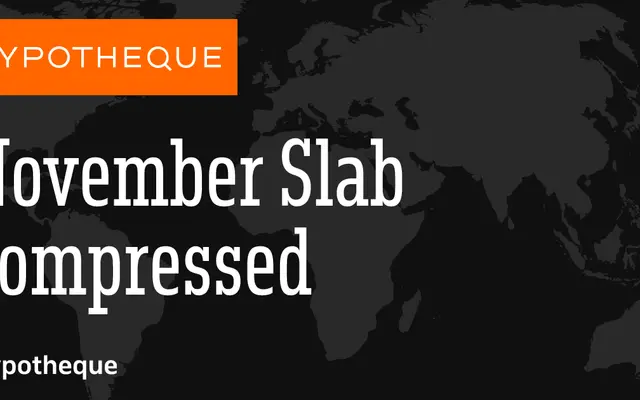
November Slab Compressed
A compressed slab serif from Typotheque's November Slab system, offering nine weights from Hairline to Black with matching italics.
Part of the November Slab system alongside regular and condensed widths, the Compressed cut runs from Hairline to Black across eighteen styles including italics. The family also ships as a variable font, giving fine-grained control over weight and width in a single file. Its tight proportions suit headlines, poster work and situations where column space is tight.
A compressed slab serif with a wide weight range from Hairline to Black; the geometric construction and uniform stroke contrast place it firmly in the slab serif category.